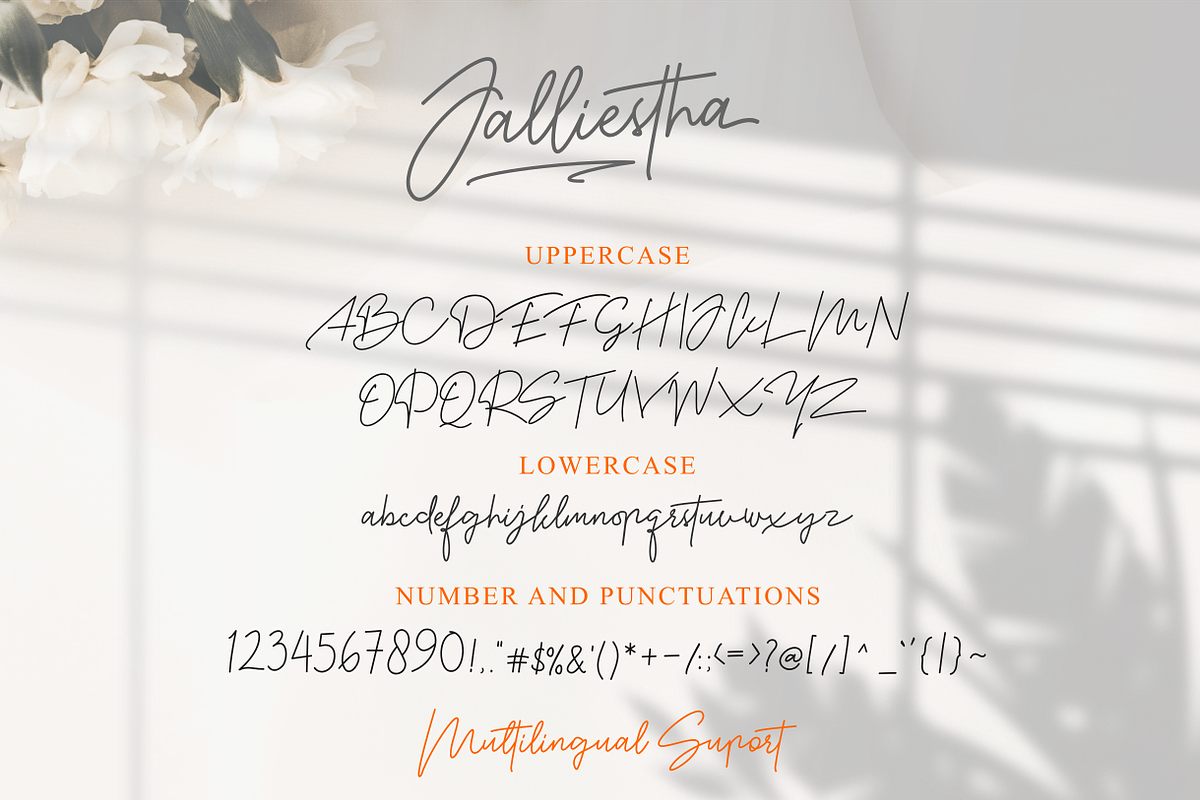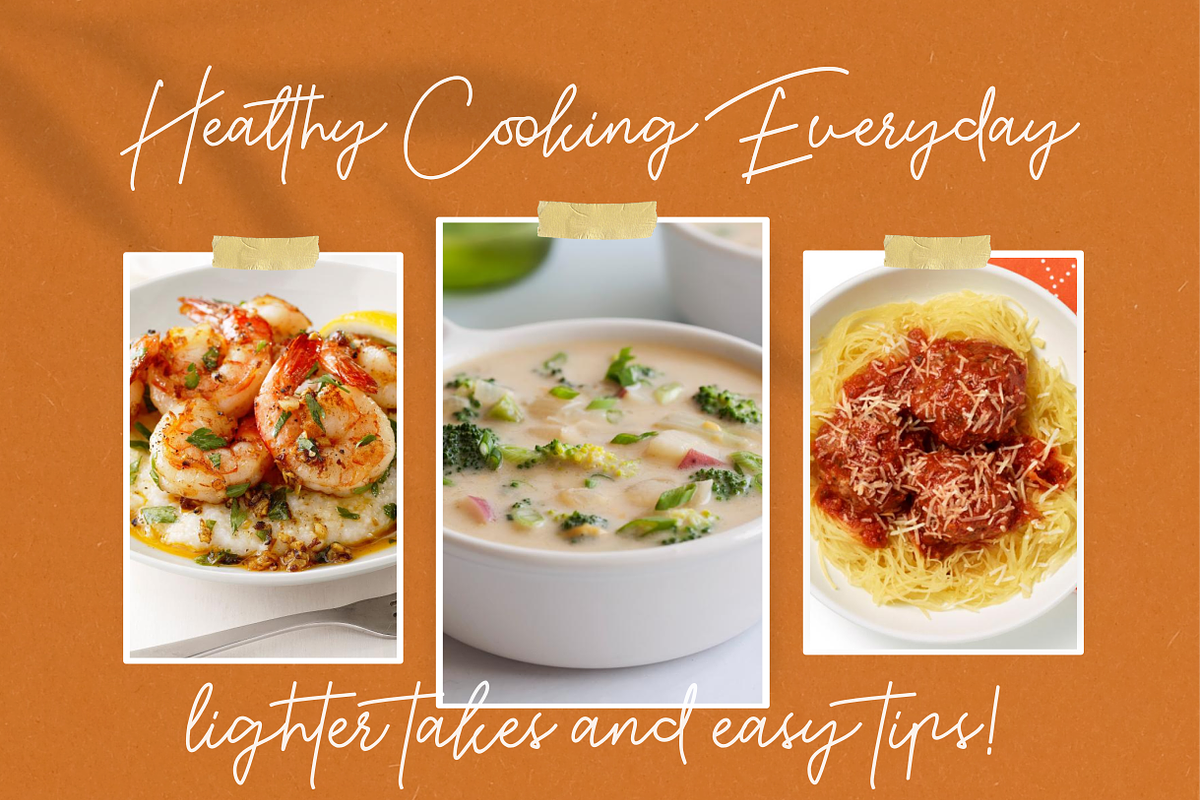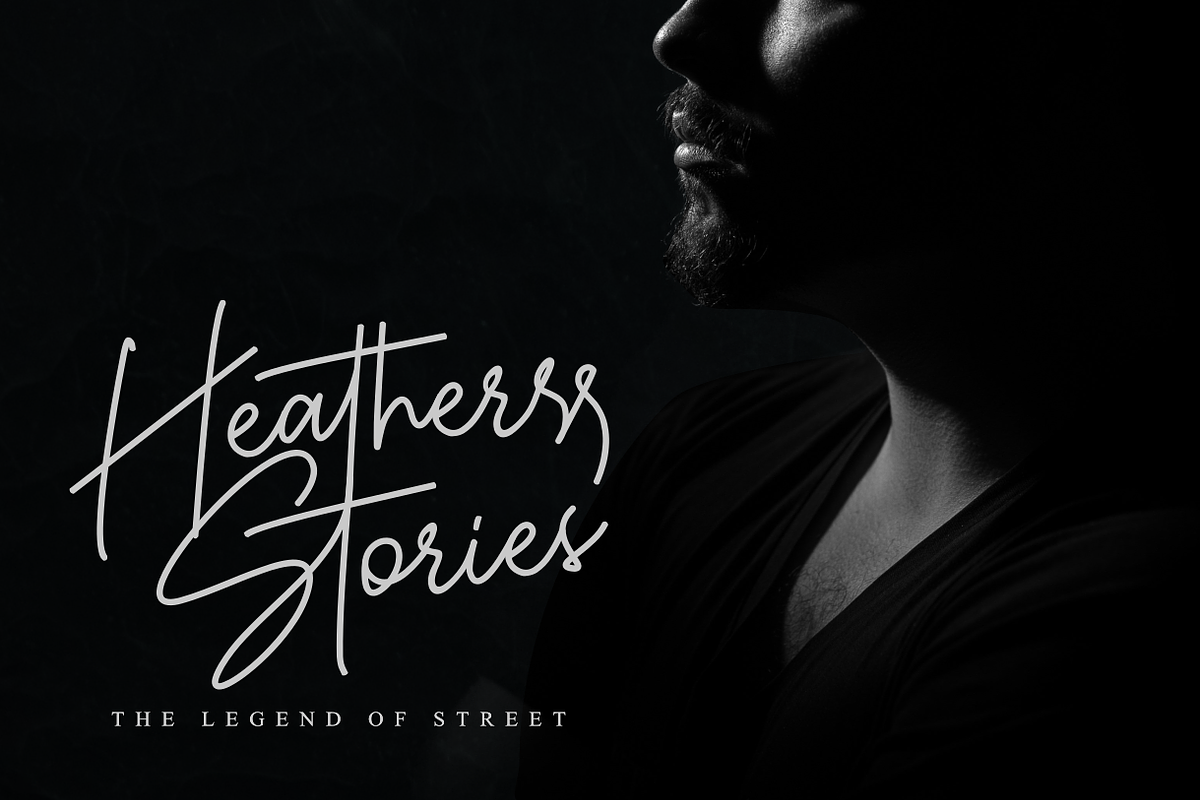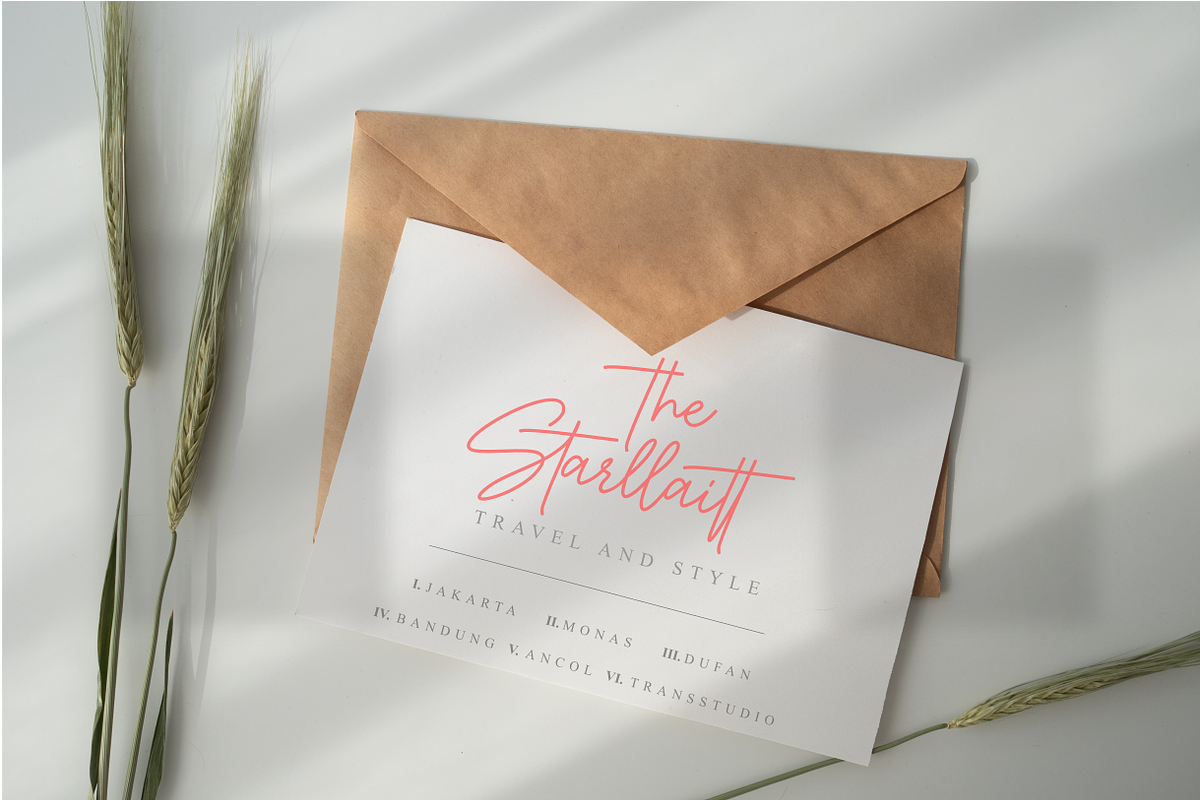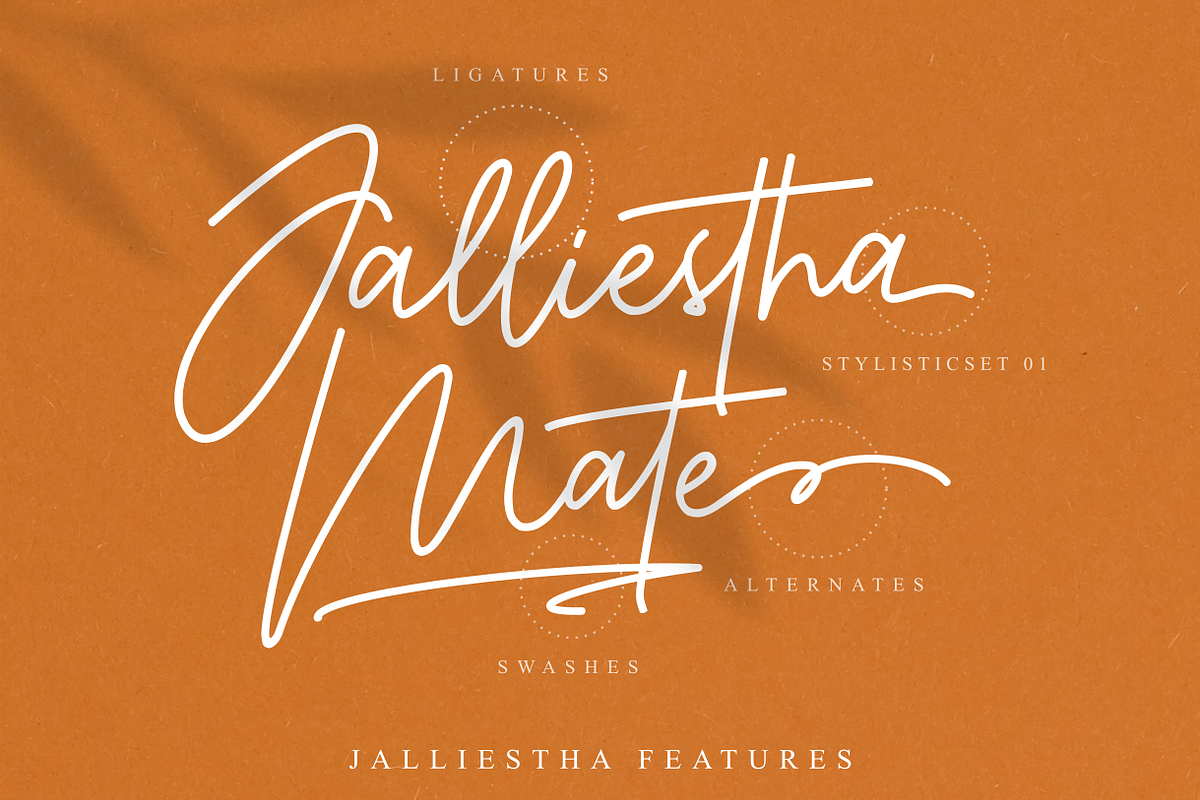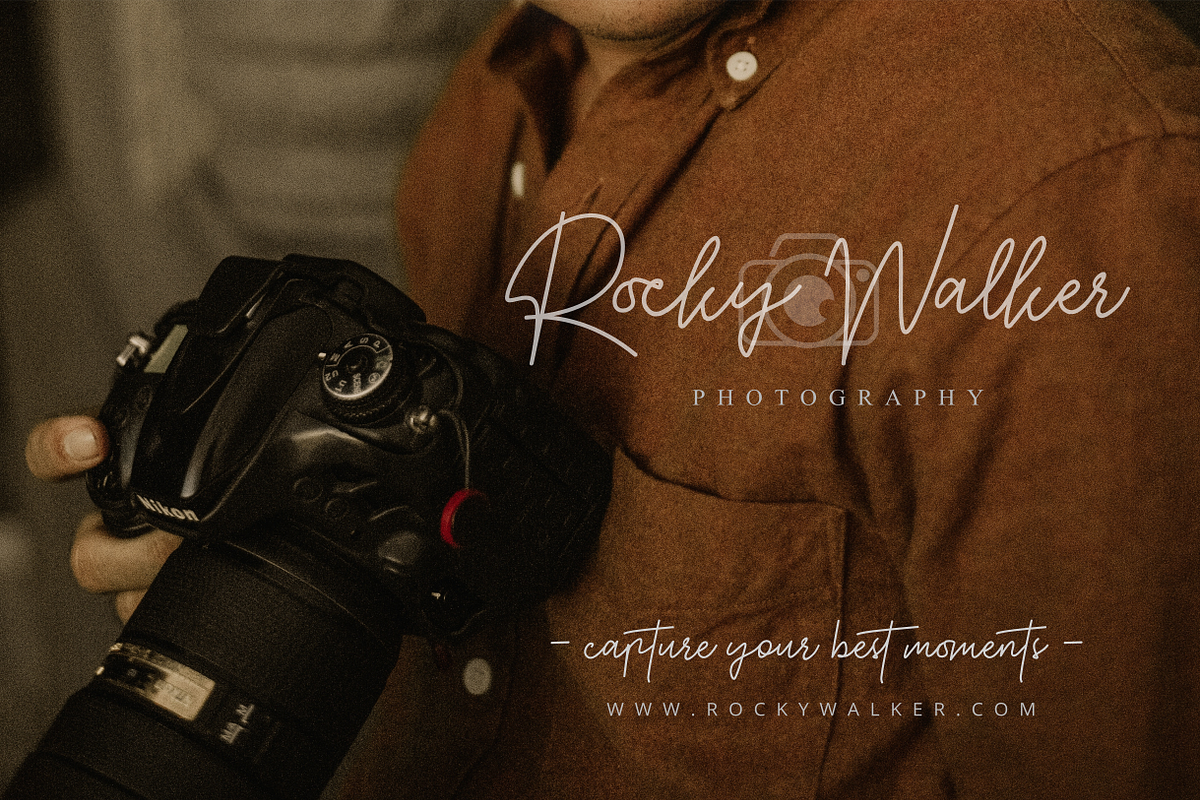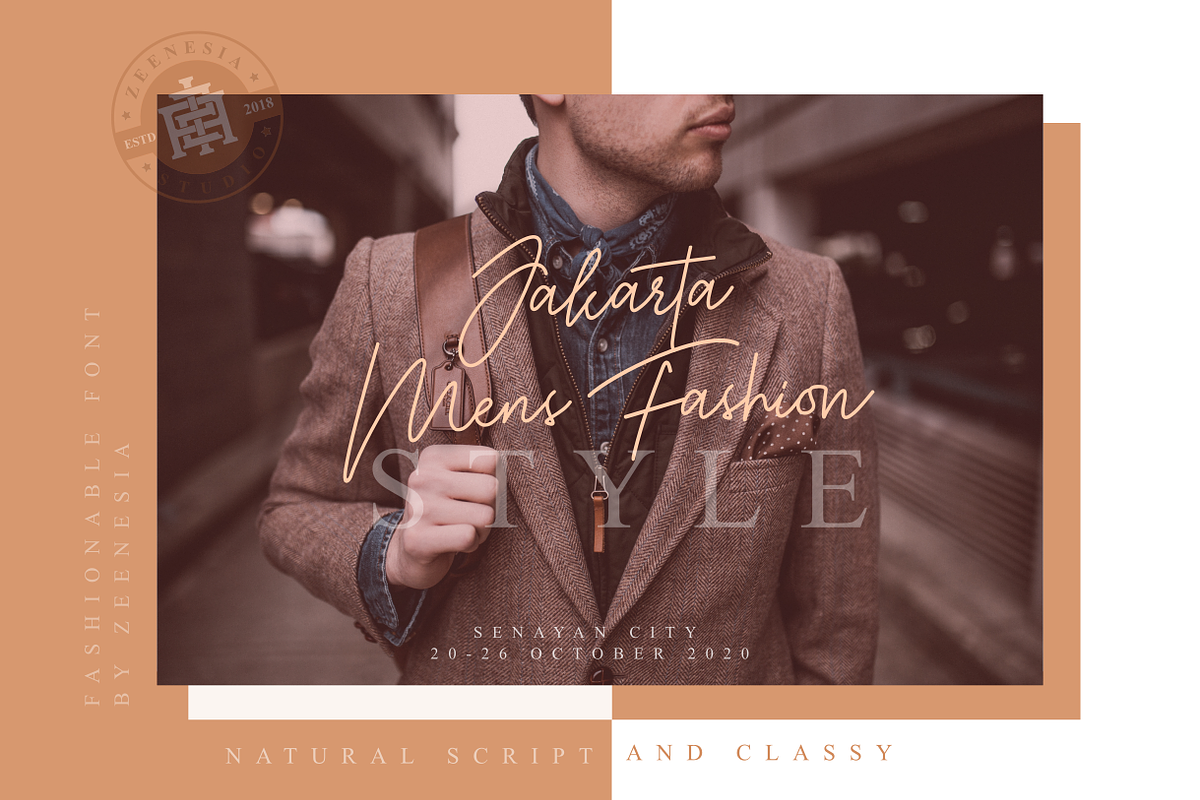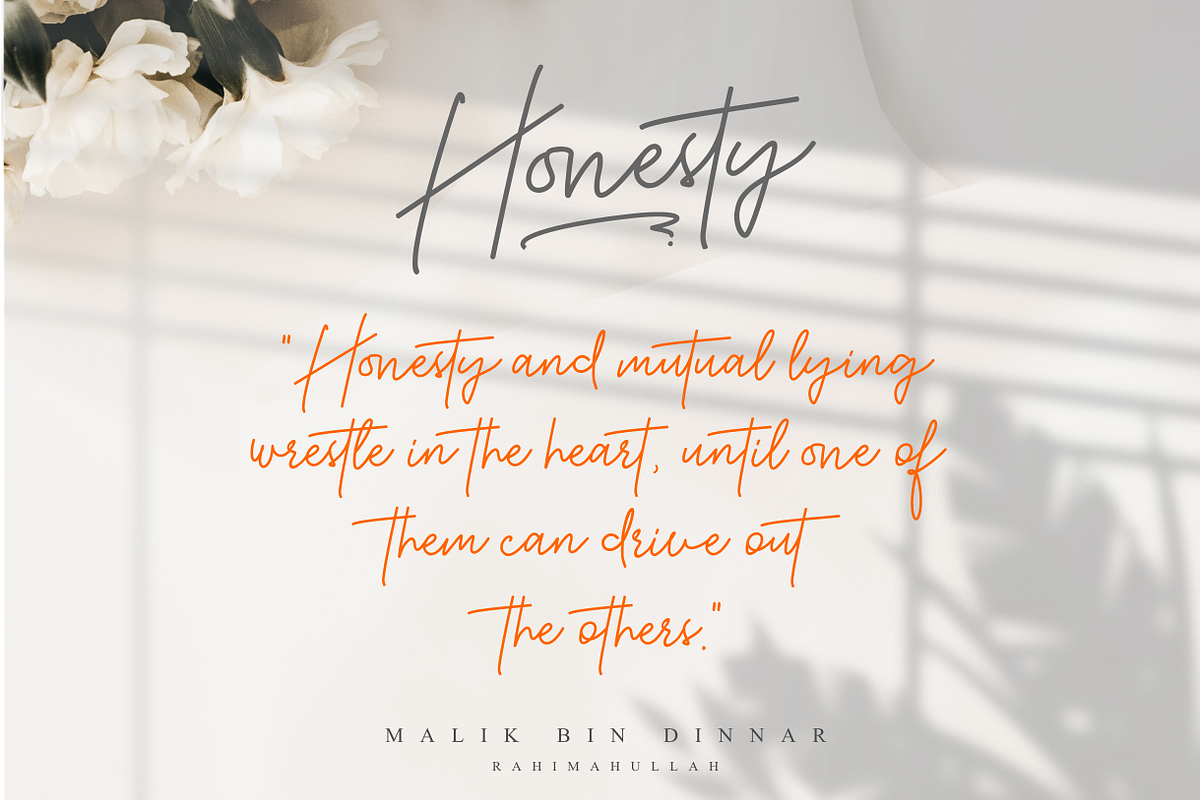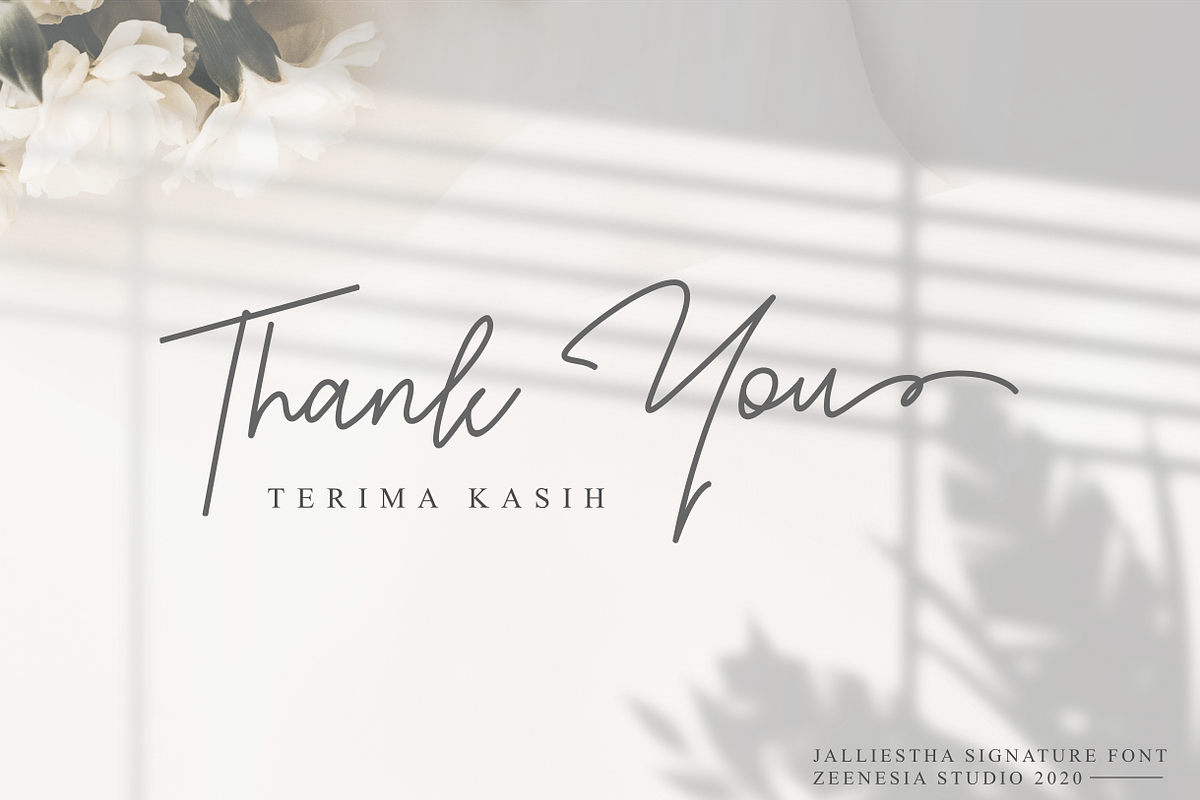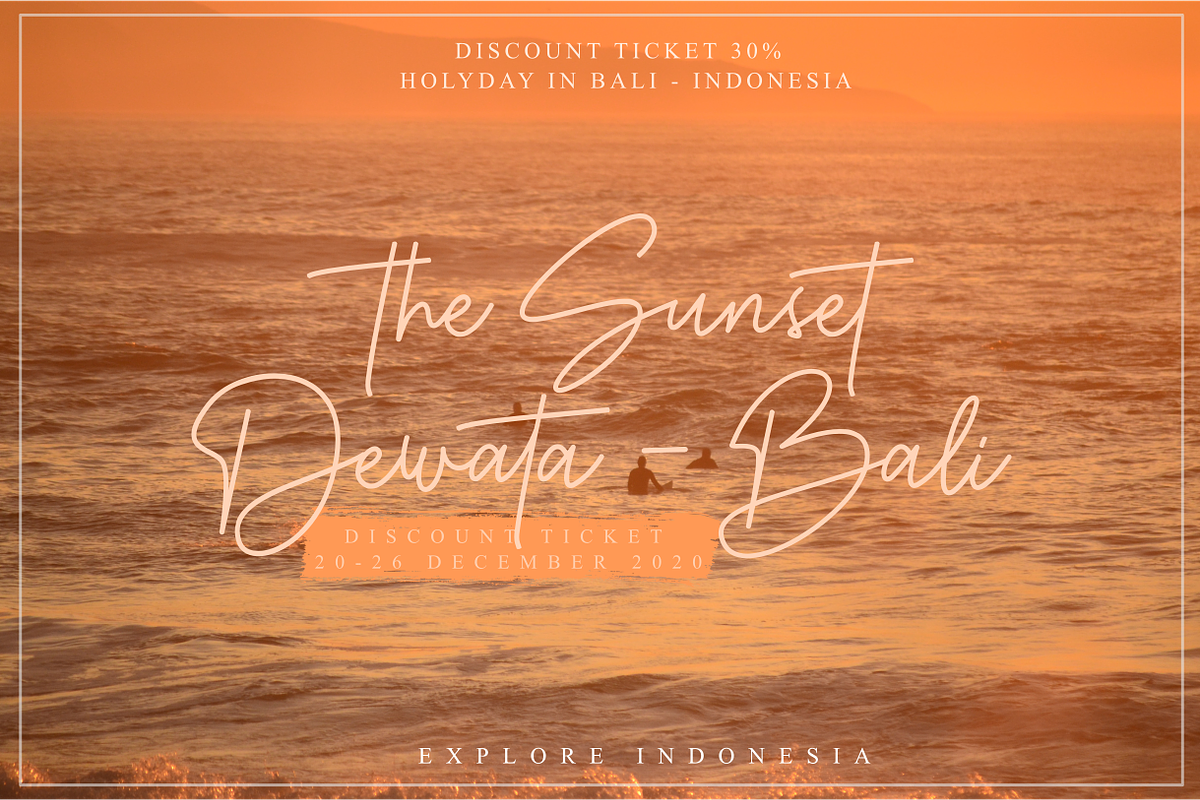
Jalliestha - Handwritten Signature
Jalliestha Signature is a monoline script font with handwritten signature Style. Jalliestha Signature font was created with original handwritting pen. This collection of scripts is perfect for personal branding. this works well for many applications.
Jalliestha Signature would perfect for photography, watermark, social media posts, advertisements, logos & branding, invitation, product designs, label, stationery, photography, wedding designs, product packaging, special events, fashion, website or anything that need handwriting taste.
Jalliestha Signature is equipped with many additional features that allow you to customize your text. You will get a complete set of uppercase and lowercase, multilingual, punctuation, ligatures, stylistic alternates a-z and more.